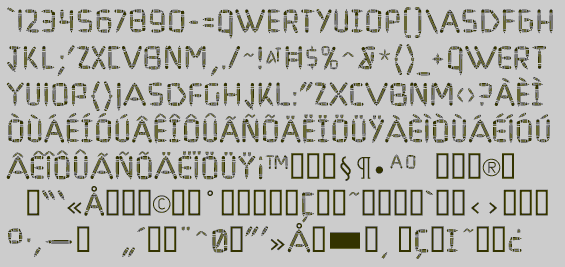
PencilFat
Imagine that you had a bunch of pencils of various sizes and you wanted to make a set of letters with them. You would probably come up with something similar to PencilIn, PencilFat, or PencilOut, three novelty fonts in which the characters are made up of pencils.